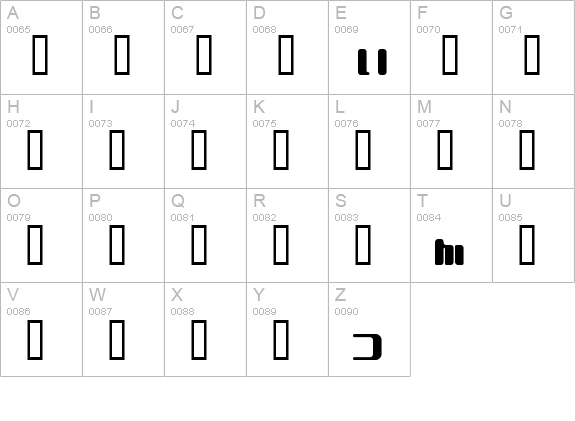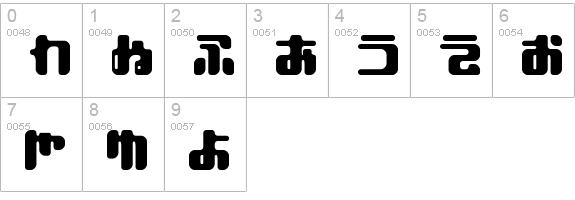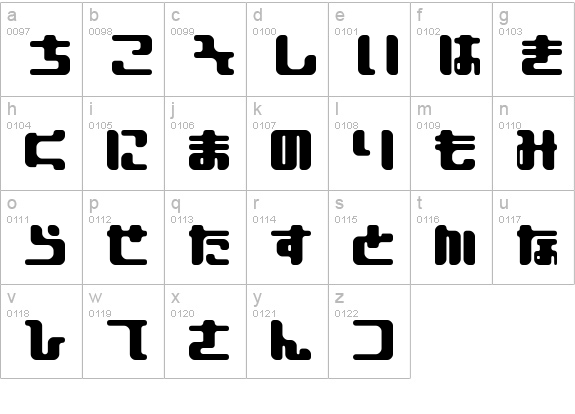
EOPlaï¿¿a hiragana Font Details
EOPlaï¿¿a hiragana font is a stunning and elegant typeface that embodies the beauty and intricacy of the Japanese hiragana characters. Each glyph is meticulously crafted with a delicate balance of curves and strokes, creating a harmonious and visually appealing design. This font is perfect for adding a touch of sophistication and cultural flair to your projects, whether it be for branding, editorial design, or any other creative endeavor. Its clean and minimalist style makes it versatile and suitable for a wide range of applications. EOPlaï¿¿a hiragana font is not only aesthetically pleasing but also highly functional, ensuring excellent readability in both print and digital formats. Whether used for headlines, body text, or decorative elements, this font will surely make a statement. Best of all, EOPlaï¿¿a hiragana font is freely available to download at FontsMarket.com, allowing designers and enthusiasts to access this beautiful typeface with ease. Don't miss the opportunity to enhance your projects with the timeless elegance of EOPlaï¿¿a hiragana font today!